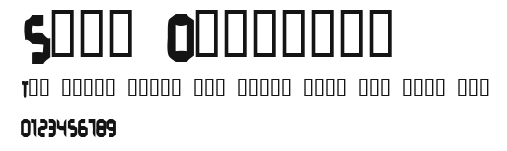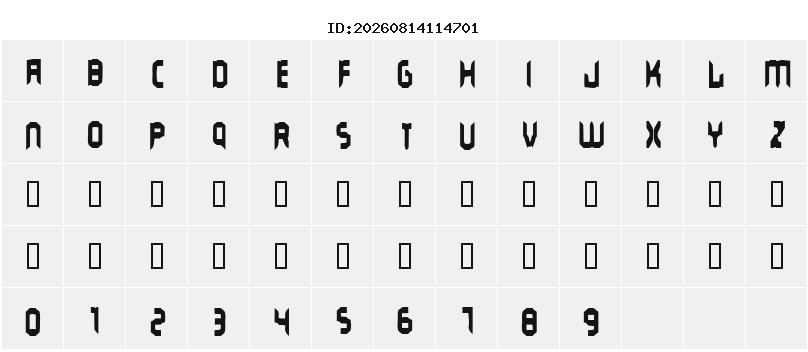
Stun Operator Preview
• Font Name: Stun Operator
• Font ID: Macromedia Fontographer 4.1 Stun Operator
• Full Font Name: Stun Operator
• Version: Macromedia Fontographer 4.1 5/1/00
• PostScript Name: StunOperator
• Character Count: 37
About Stun Operator.ttf
Stun Operator.ttf is a modern, elegant sans-serif font designed for ultimate readability and visual harmony. Perfect for branding, headlines, web design, and print materials.